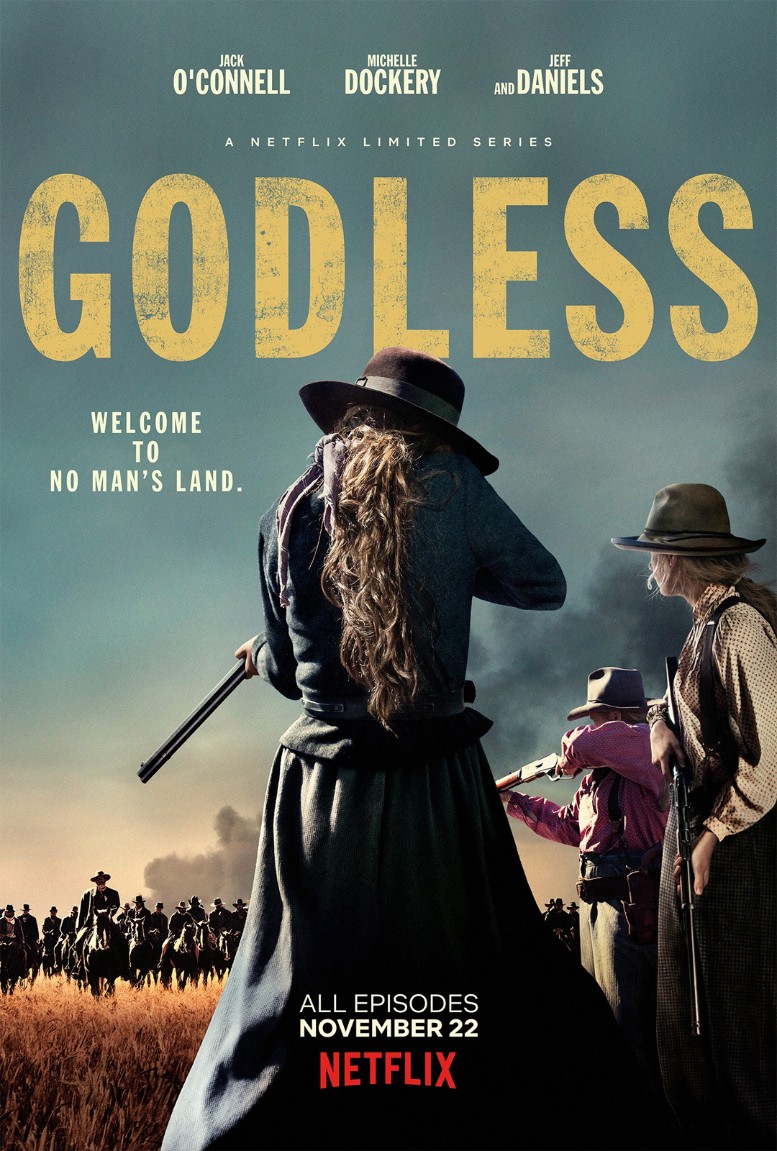
Godless (TV series) Font
DramaGodless is a Western-themed Netflix original series that follows the lives of outlaws, women, and townsfolk in the late 1800s in the American West, where religion and justice are often intertwined.
The title font of the TV series is Franklin Gothic Extra Cond, a grotesque sans serif typeface created by Morris Fuller Benton for the American Type Founders Company between 1903 and 1912.